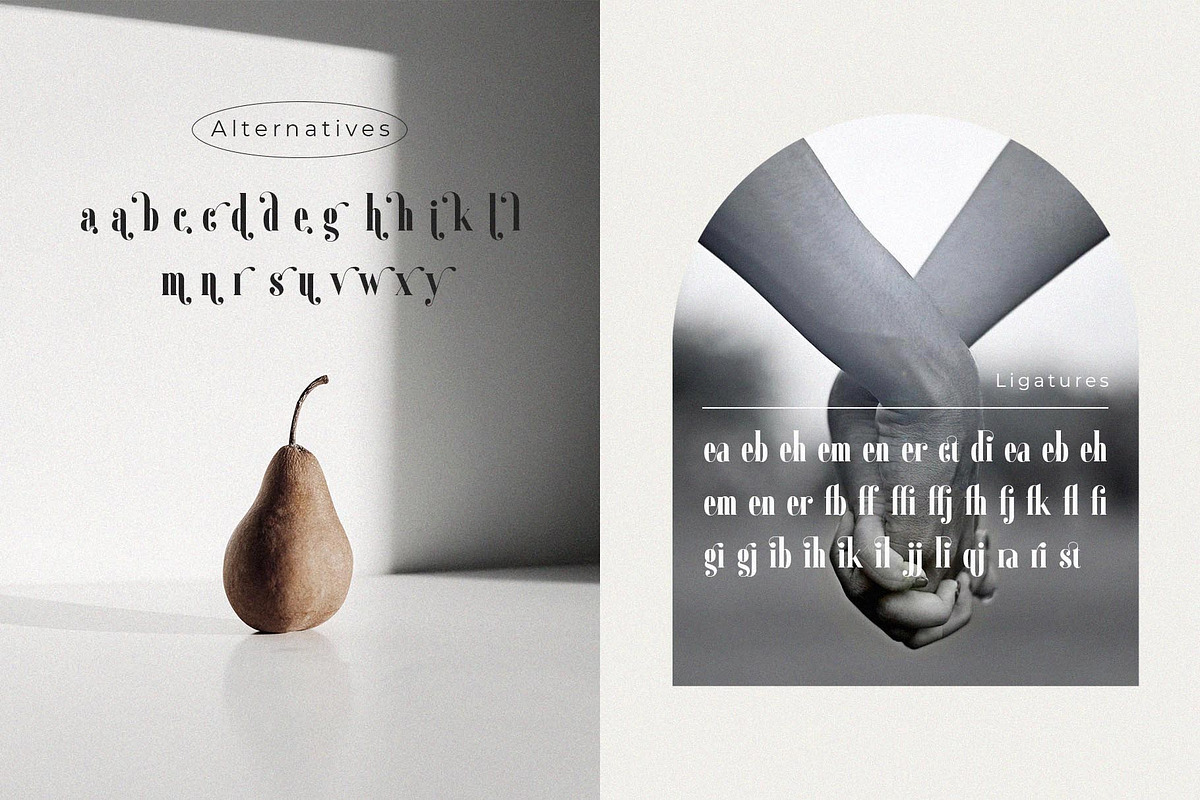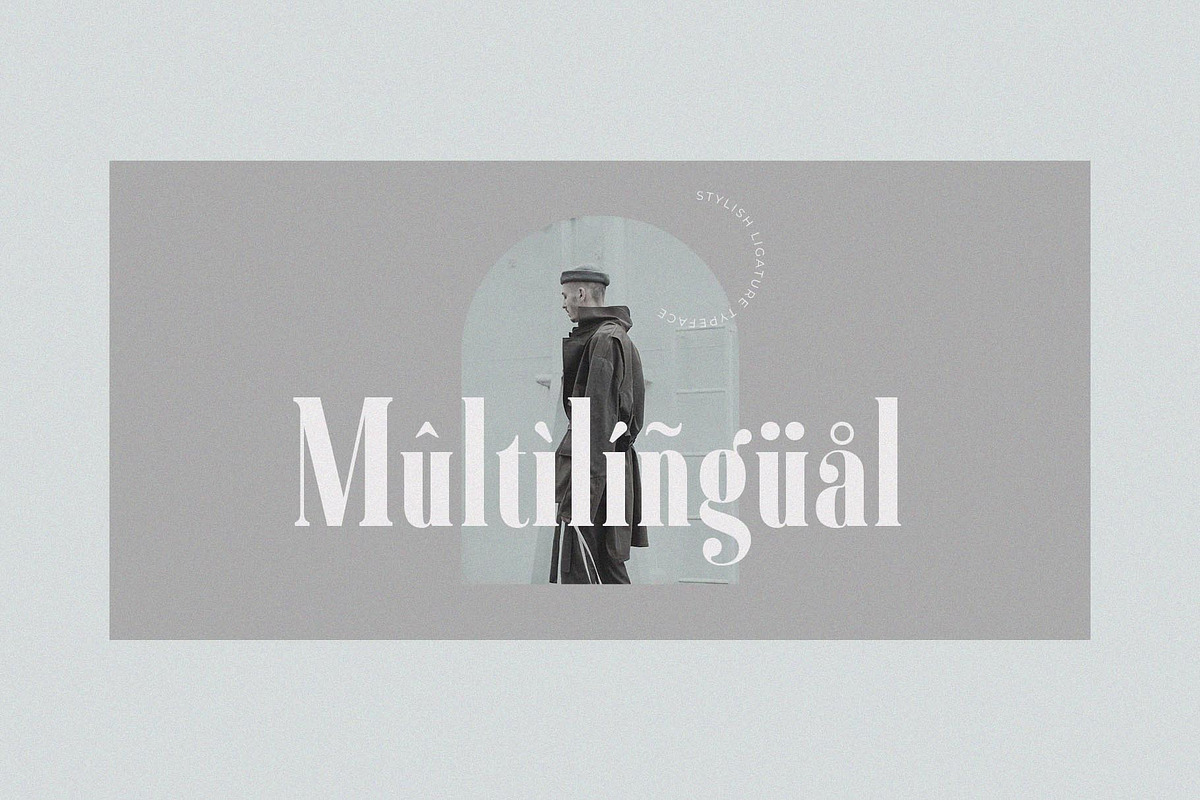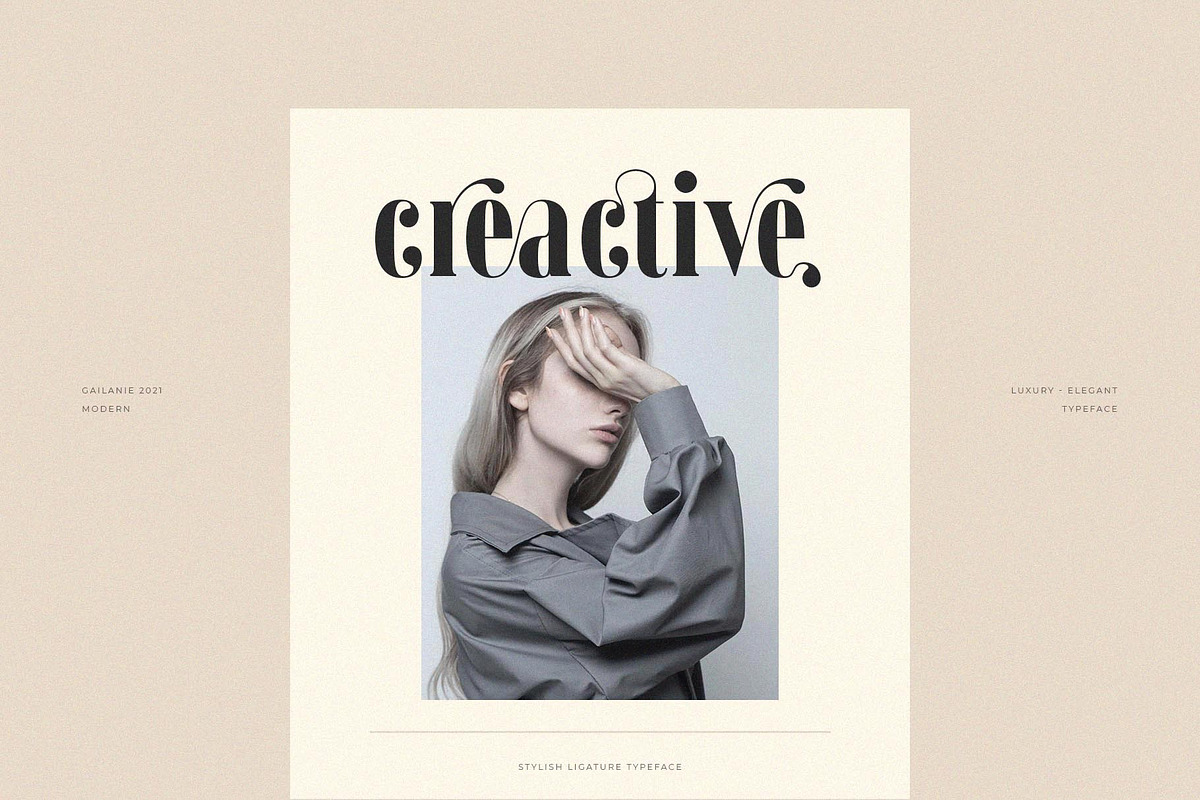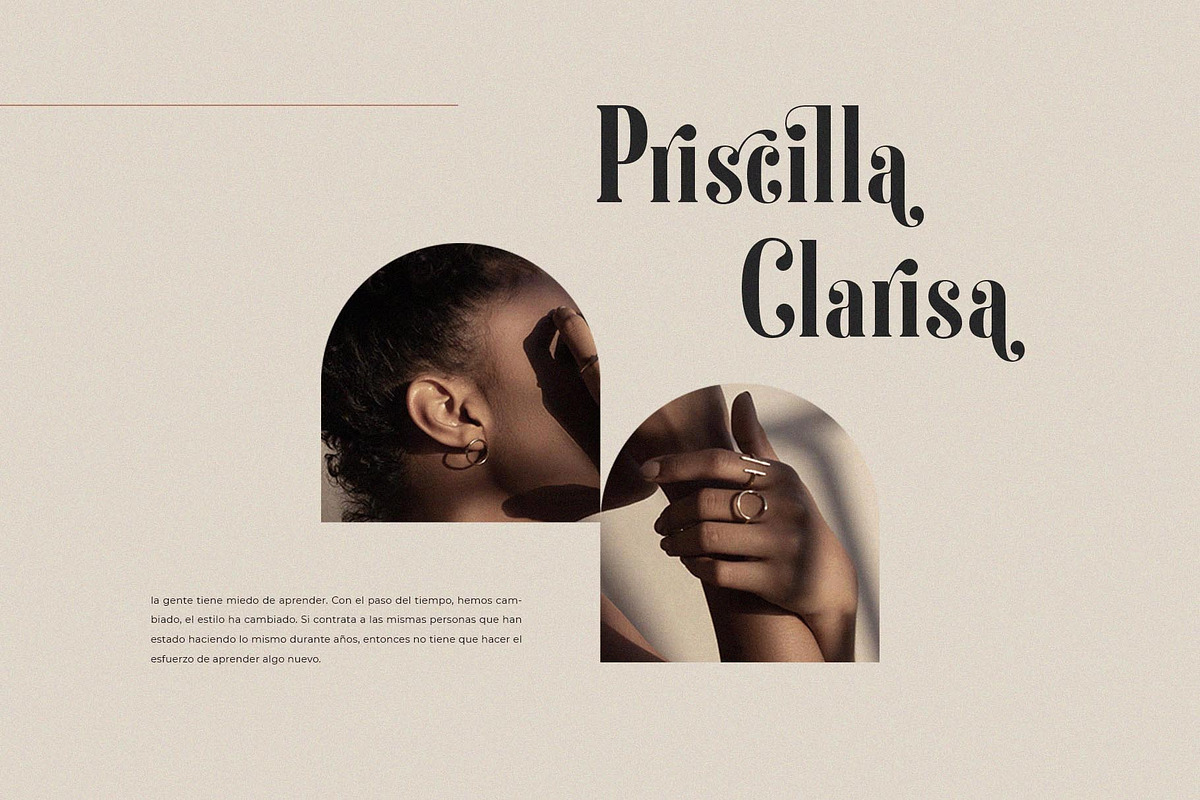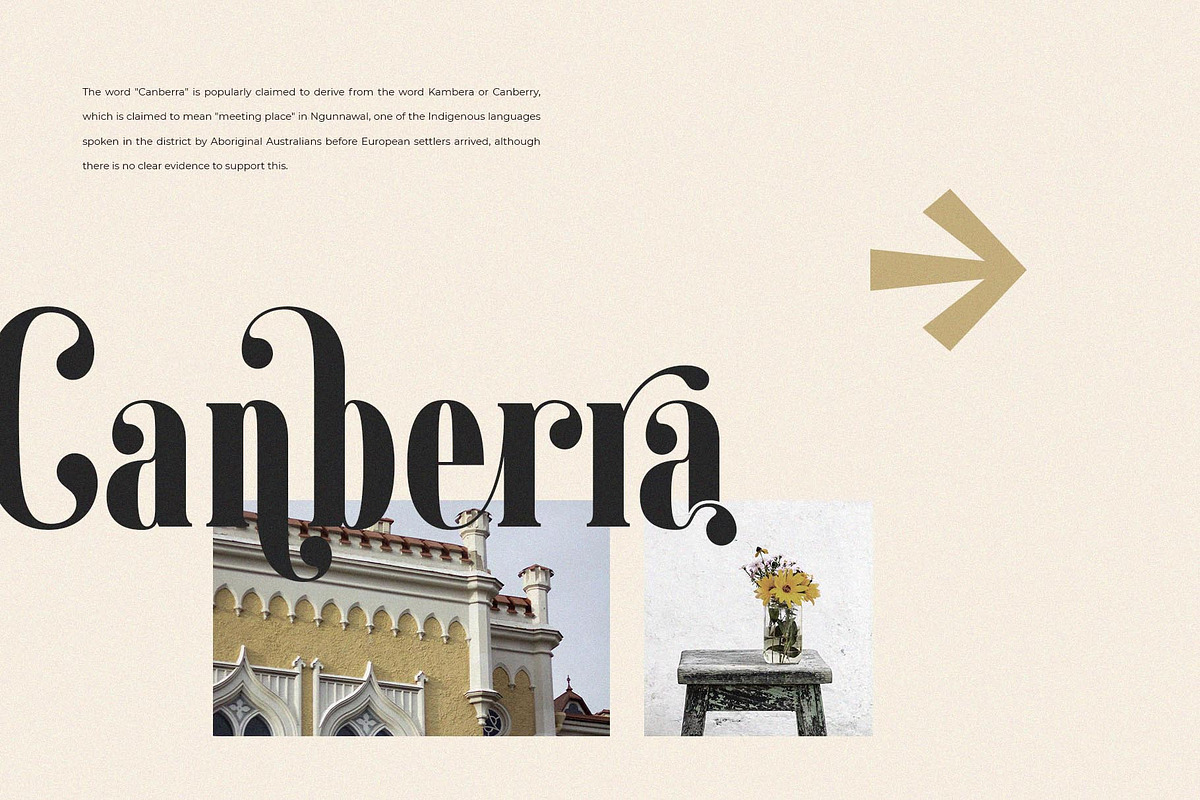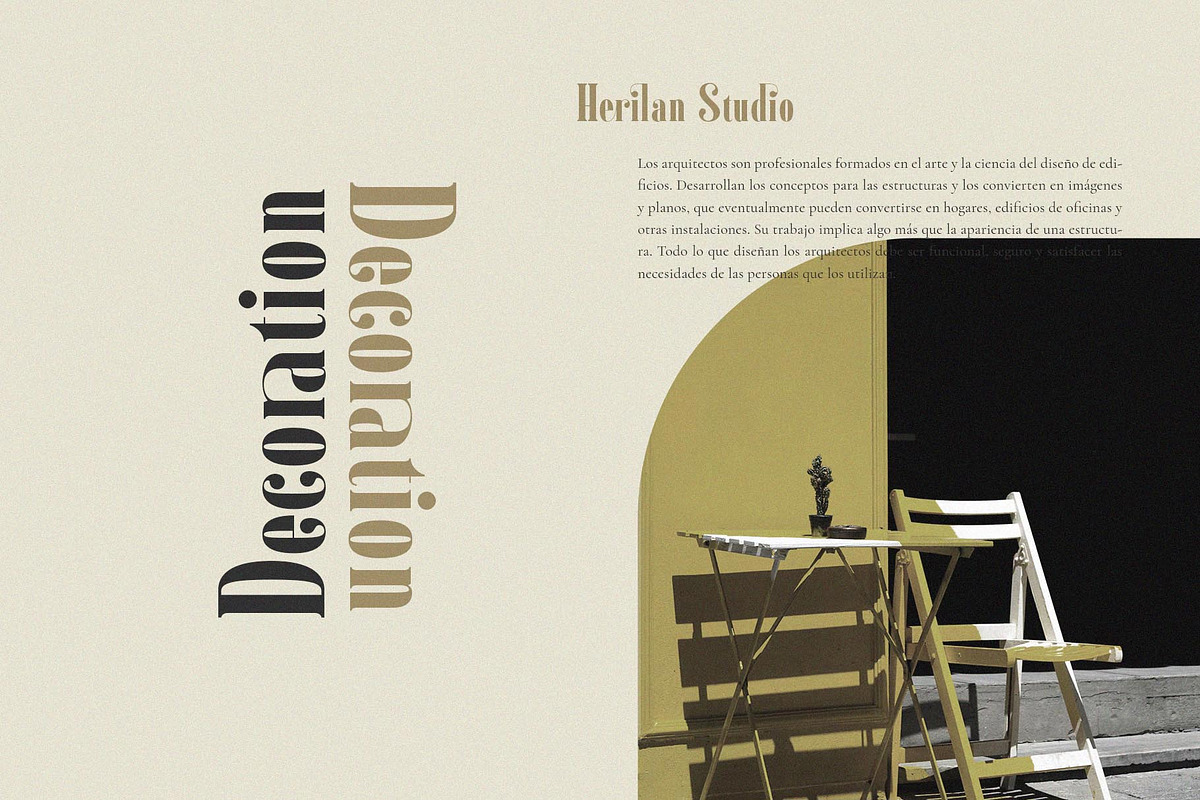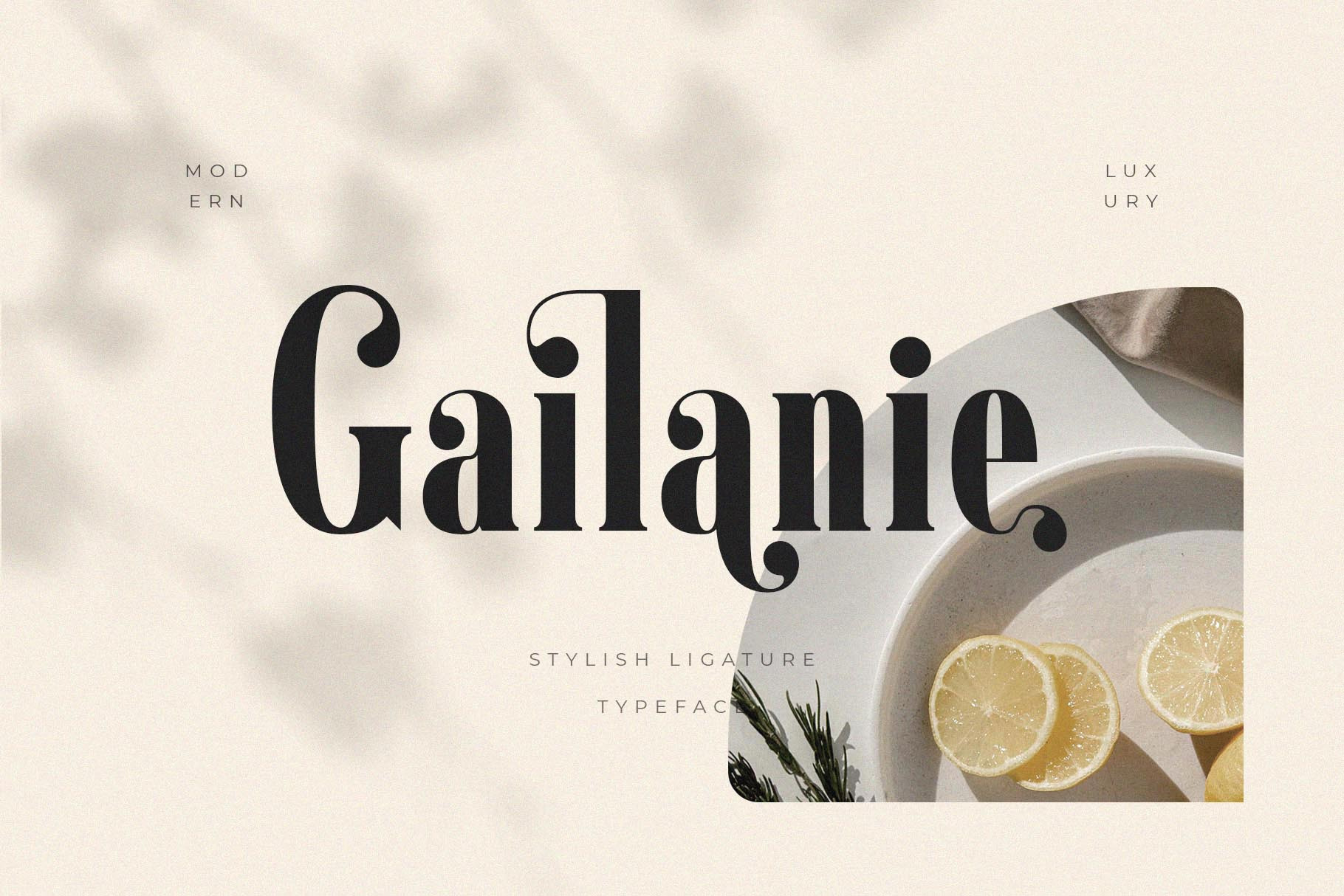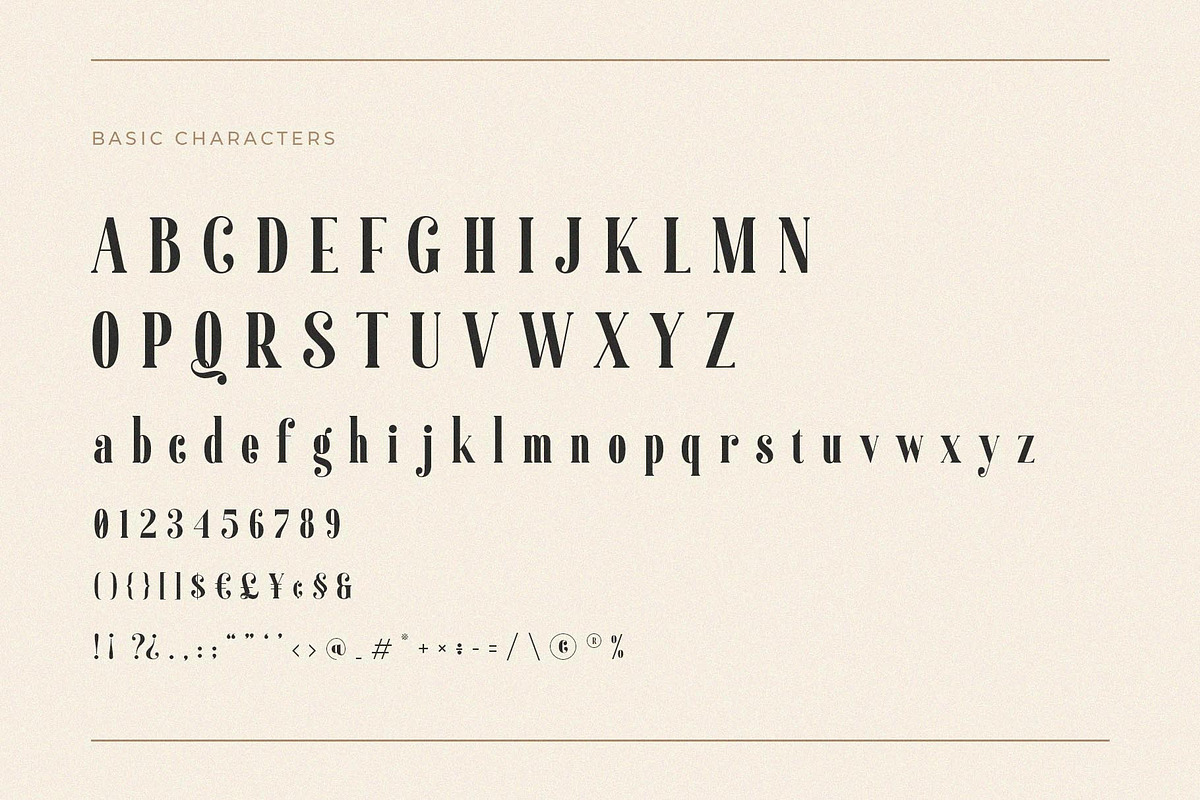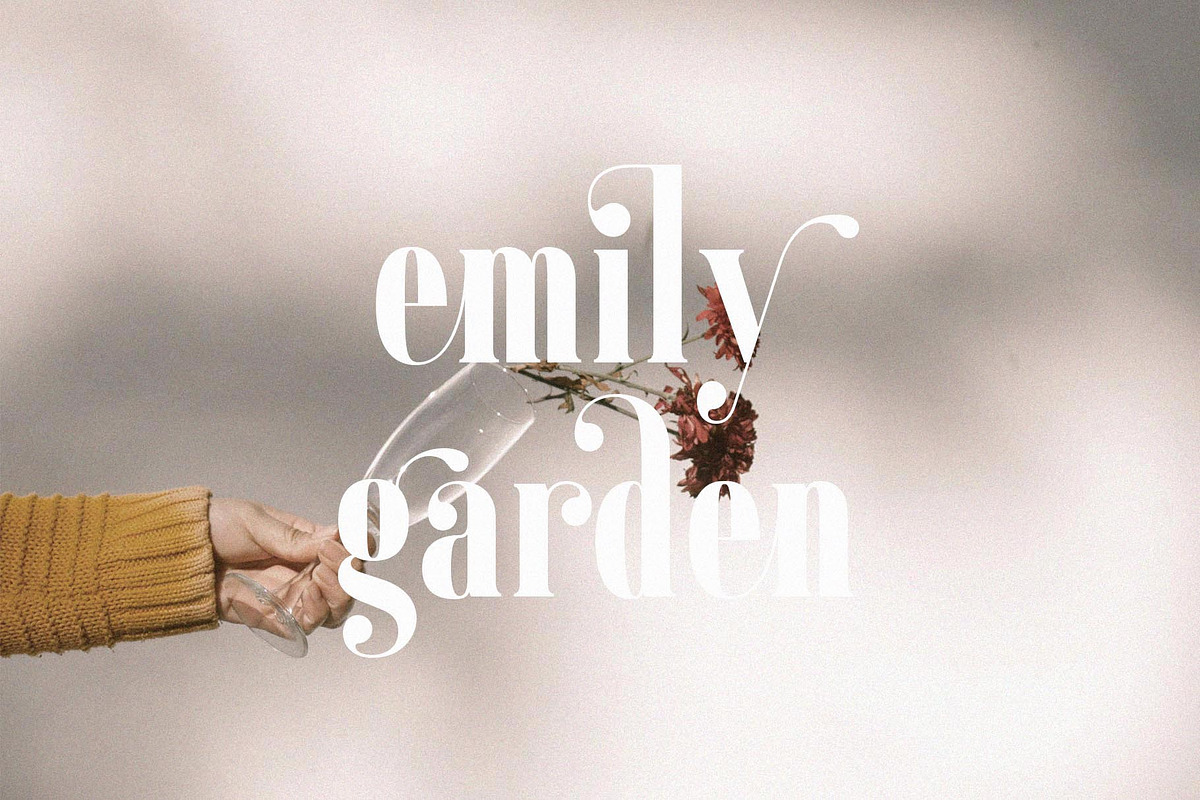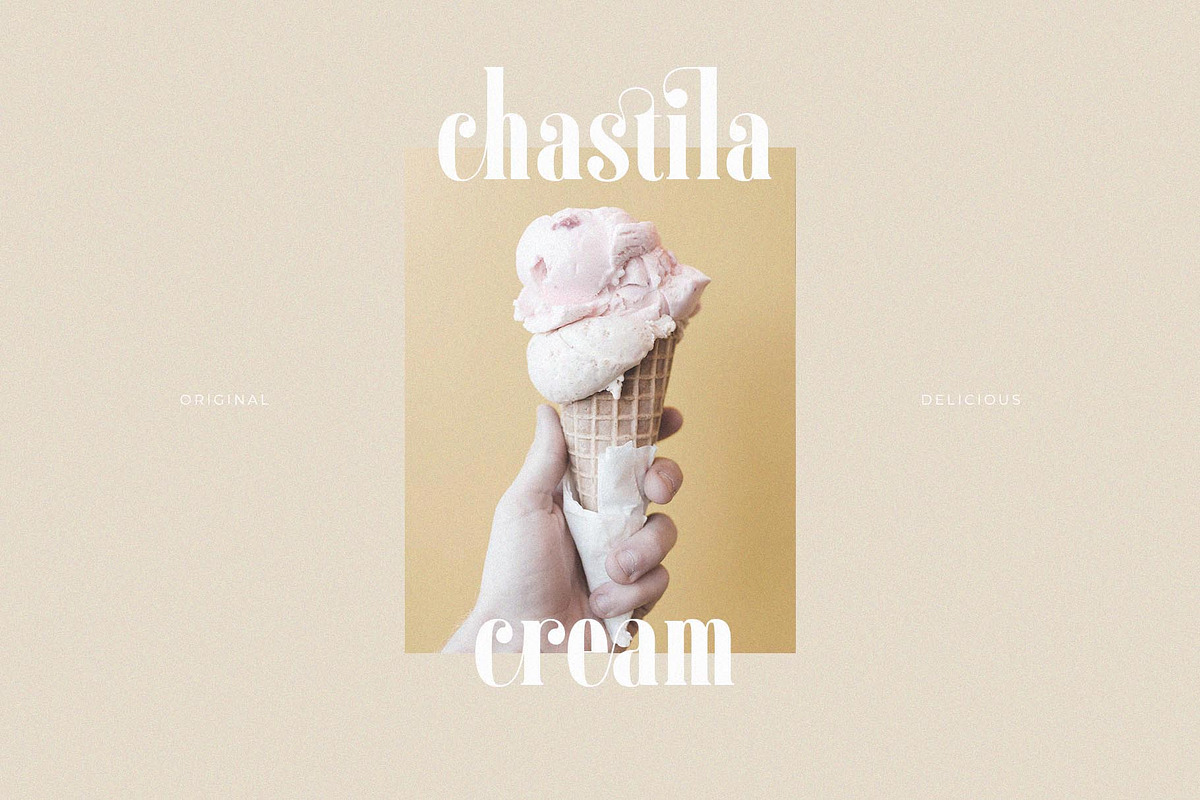
Gailanie // Stylish Ligature Font
Hello, Gailanie is modern typeface with stylish and elegant style is perfect for branding, logos, invitation, master heads, and more.
- Lowercase and Uppercase
- 24 Stylistic Alternates & 35 Ligatures
- Multiple Languages Supported